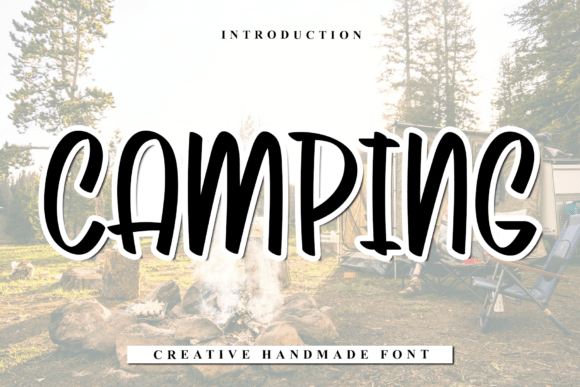
The Great Outdoors, Brought to Life with Camping Font
I’ll never forget the design project that led me to discover Camping Font. I was working on a branding campaign for an outdoor gear company, and I needed a font that would capture the essence of adventure and freedom. After hours of scouring font libraries and marketplaces, I stumbled upon Camping Font. Its bold, handmade aesthetic immediately resonated with me, and I knew I had found the perfect fit.
A First Impression: What I Love About Camping Font
Camping Font is a bold and authoritative display font that embodies the spirit of the great outdoors. Here are some things I love about it:
- ✨ Organic, handmade aesthetic: The font’s creative, hand-lettered posture gives it a unique and authentic feel.
- ✅ Thick, vertically elongated letterforms: These distinctive letterforms make Camping Font perfect for headlines and titles that demand attention.
- 🌳 Perfect for outdoor lifestyle branding: The font’s natural, earthy vibe makes it an excellent choice for branding and marketing materials related to outdoor activities, travel, and adventure.
While Camping Font is an excellent choice for many design projects, it’s not without its limitations. Here are a few quirks to consider:
- 🤔 Limited legibility at small sizes: Due to its bold, condensed design, Camping Font can be challenging to read at smaller font sizes.
- ⚠️ Not ideal for body text: This font is best suited for headlines and titles; it’s not designed for lengthy blocks of text.
The Story Behind Camping Font
Camping Font was designed with the great outdoors in mind. Its creator, a passionate typographer and outdoor enthusiast, aimed to capture the essence of adventure and freedom in a single font. Inspired by vintage camping posters and handwritten trail signs, Camping Font embodies the spirit of exploration and discovery.
| Font Name | Camping Font |
| Author | Black line |
Here are some common questions about Camping Font:
| What is Camping Font best suited for? | Camping Font is perfect for outdoor lifestyle branding, travel-themed marketing, adventurous apparel designs, and impactful editorial headers. |
| Is Camping Font available in multiple weights? | Currently, Camping Font is available in a single weight. However, the font’s bold design makes it perfect for headlines and titles. |